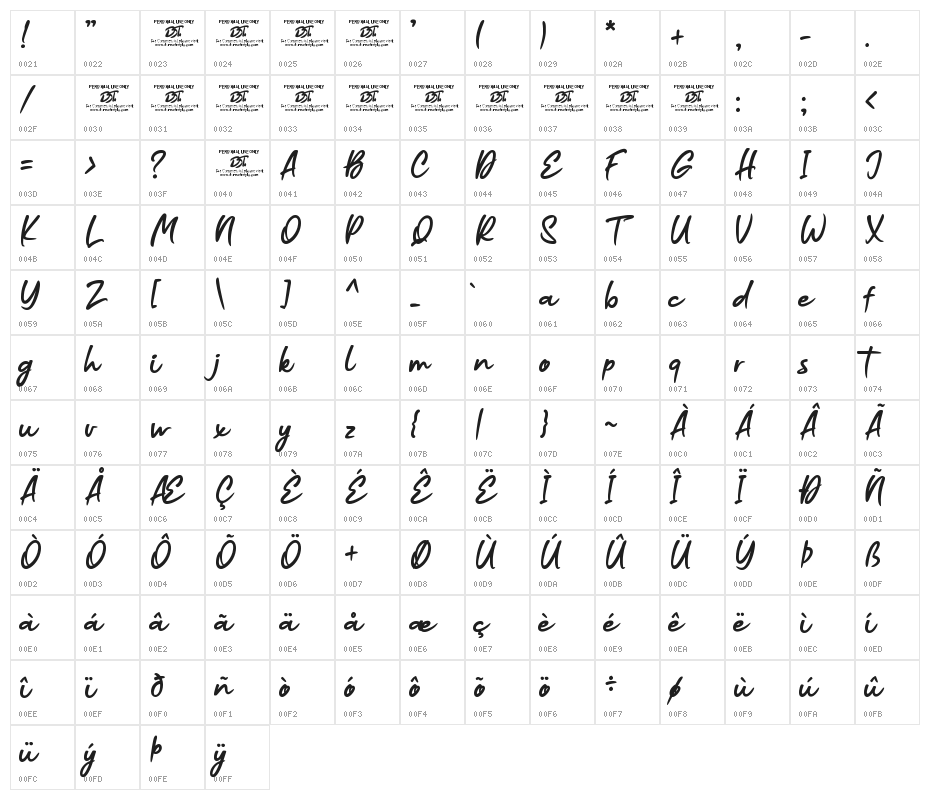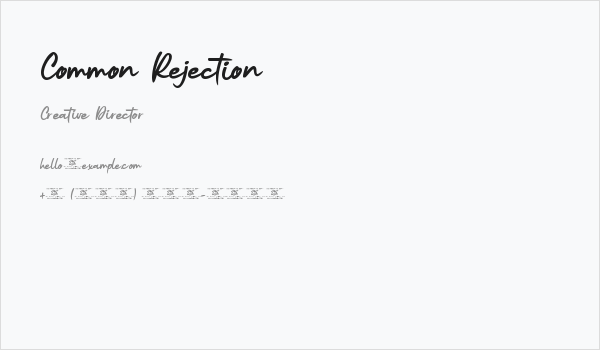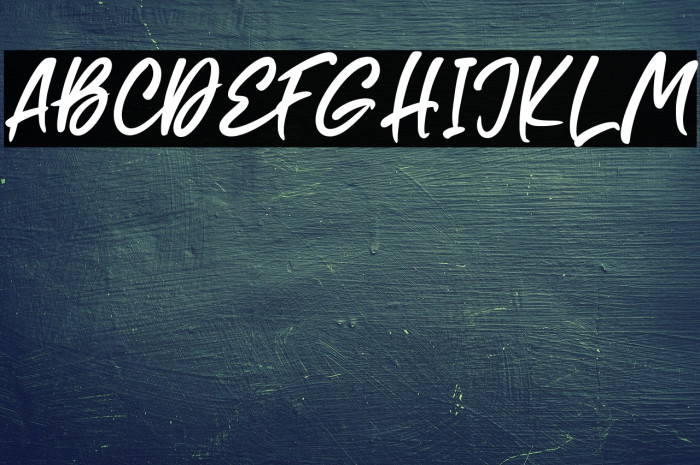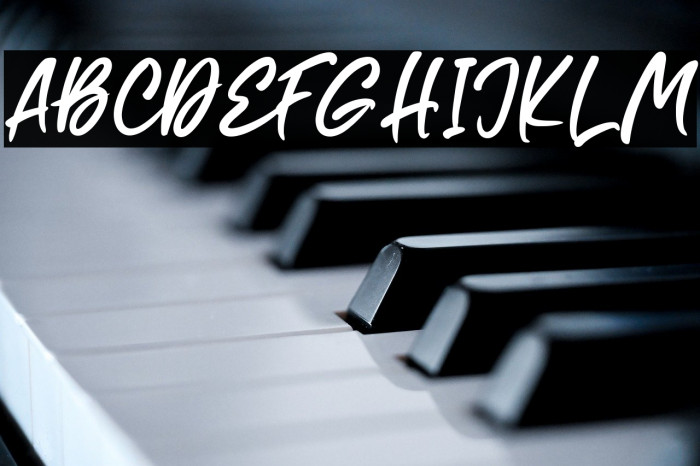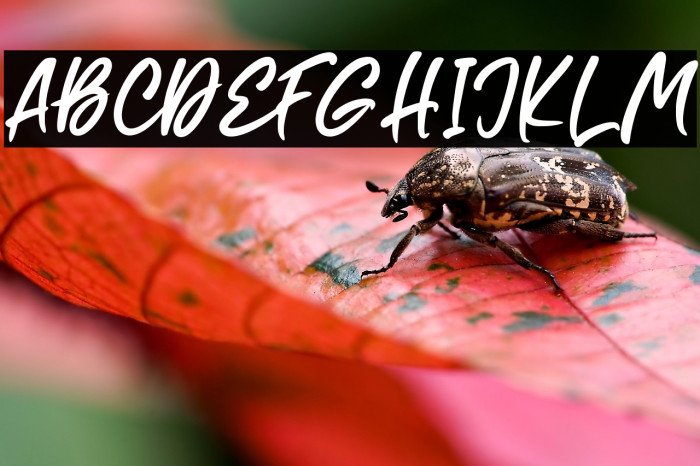
Common Rejection Font
Common Rejection Description
This font features a dynamic and fluid script style, characterized by its bold and expressive strokes. The uppercase letters exhibit a consistent slant, enhancing the sense of motion and energy. Lowercase letters maintain a cohesive flow, with some characters extending below the baseline, adding to the font's lively appearance. The numerals are styled to match the overall script aesthetic, ensuring uniformity across all characters. Special characters are integrated seamlessly, maintaining the font's energetic and informal vibe. This font is ideal for projects that require a personal and approachable touch, such as invitations, branding, and social media graphics.